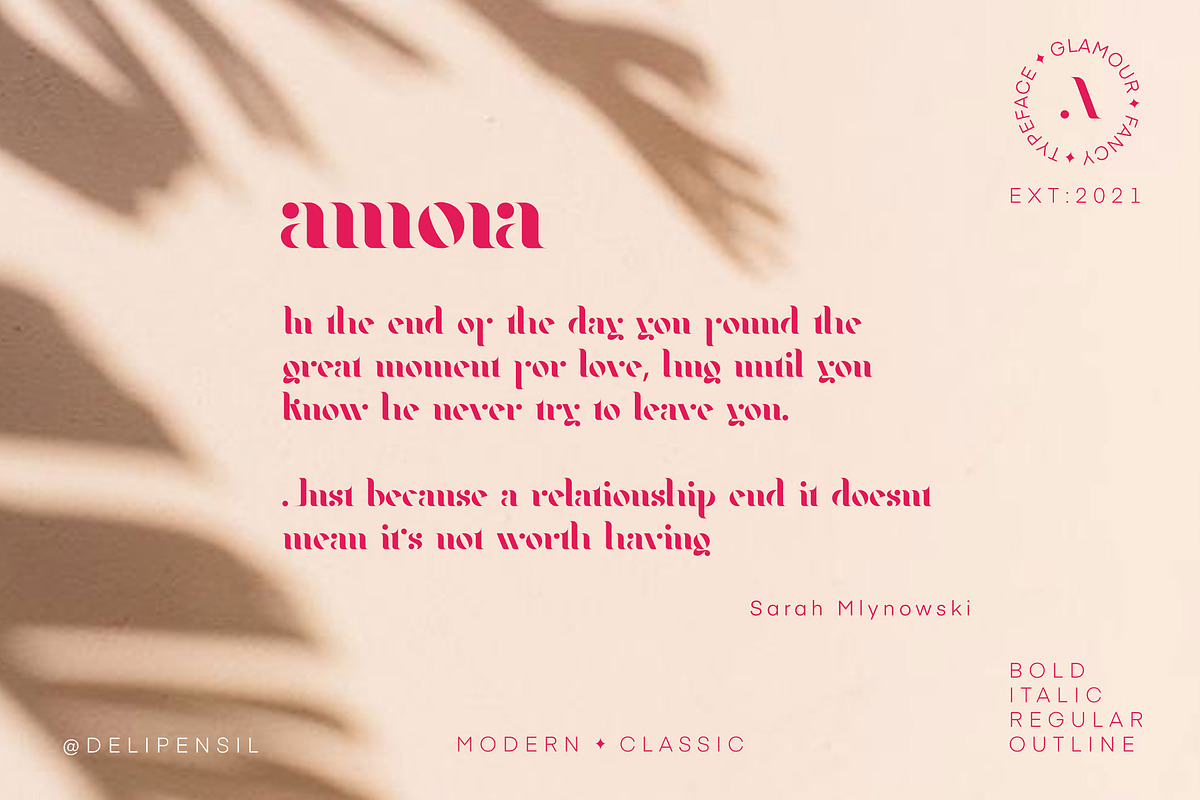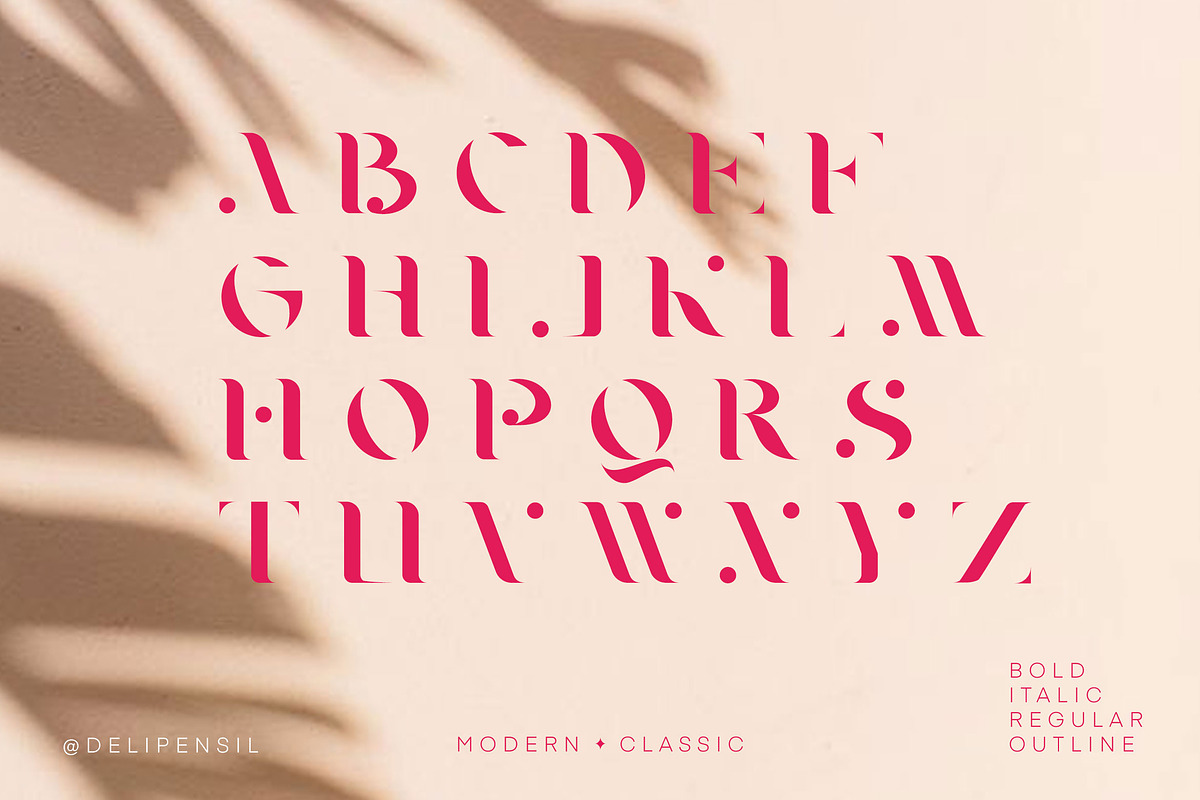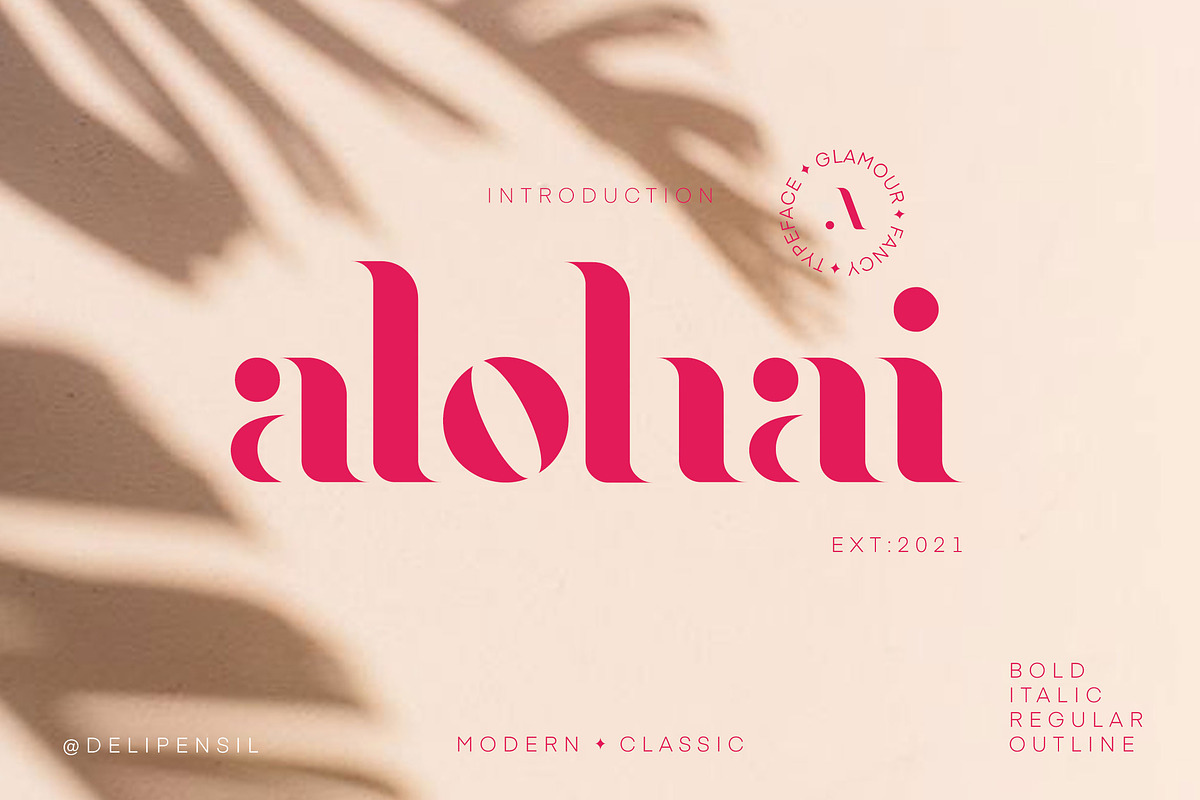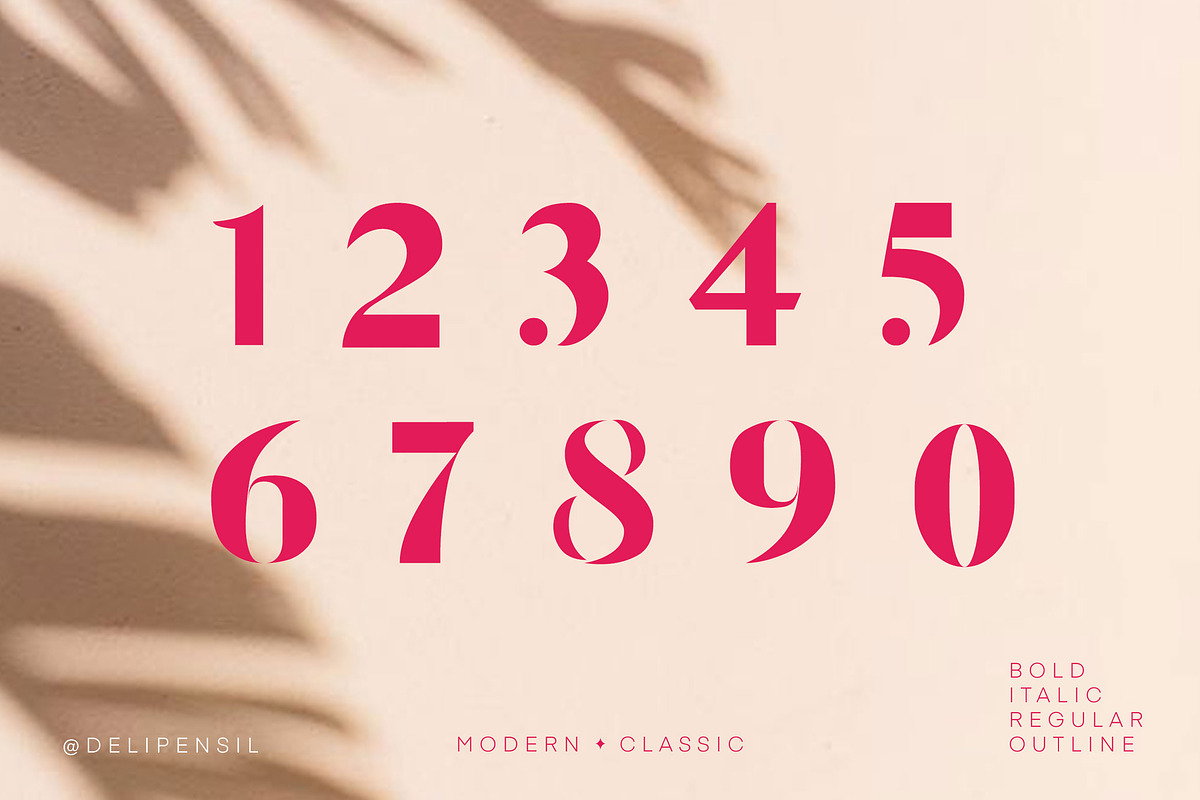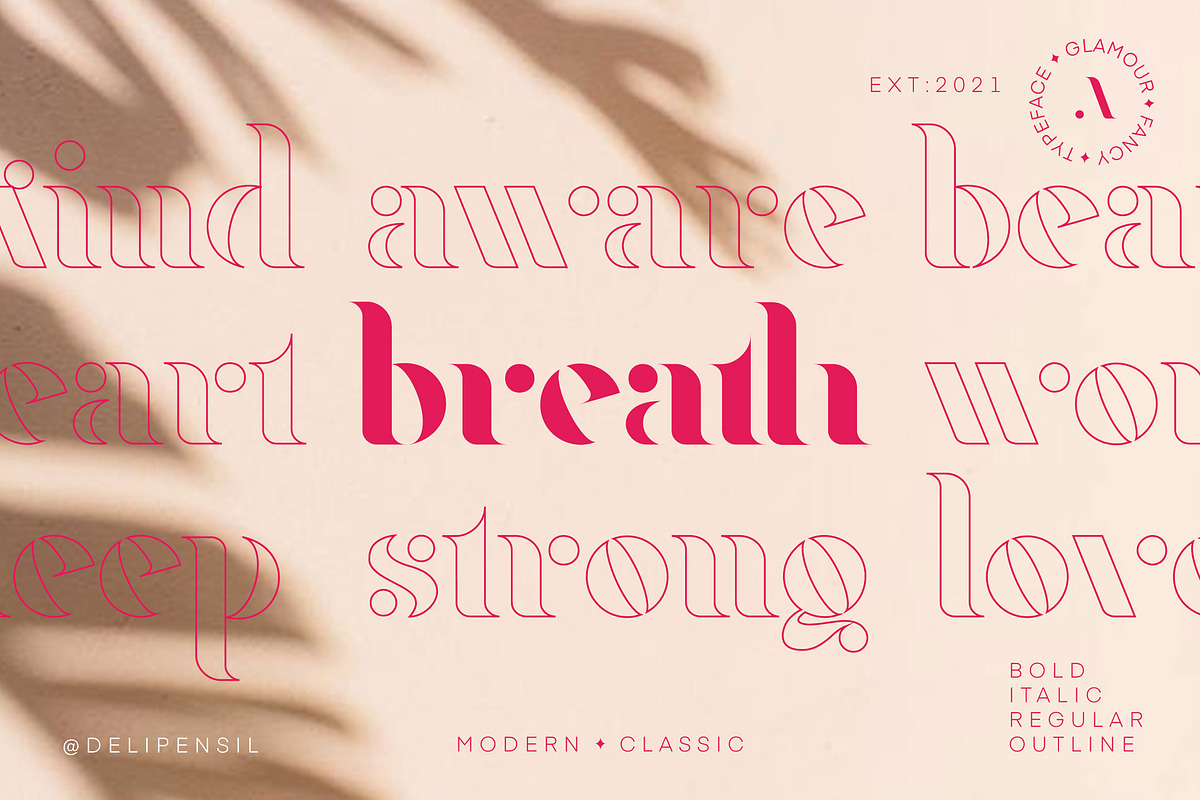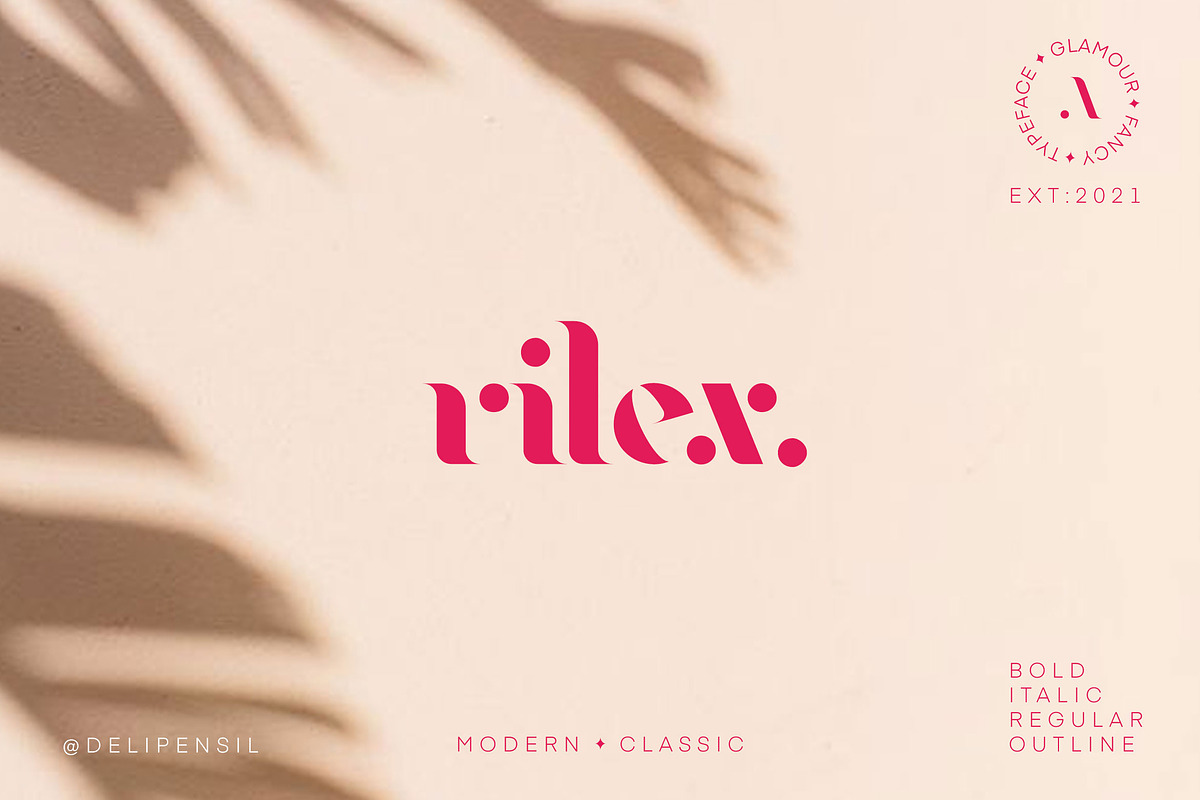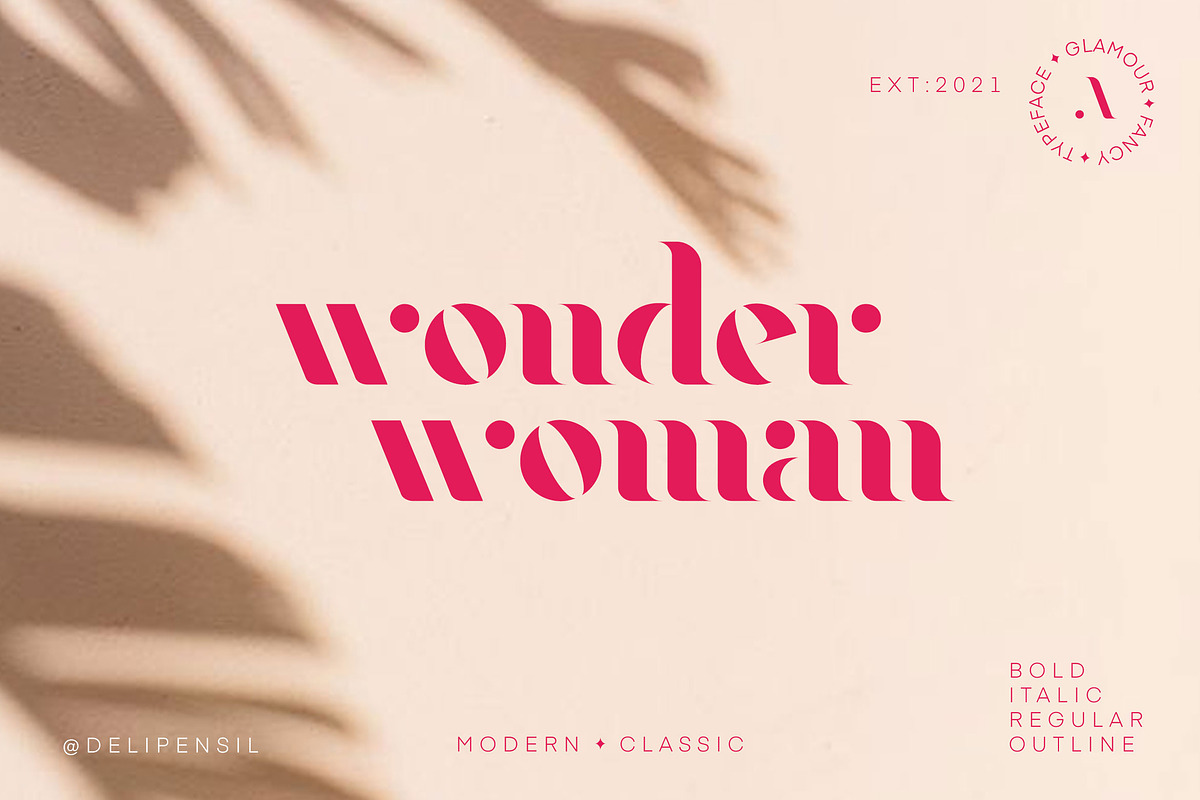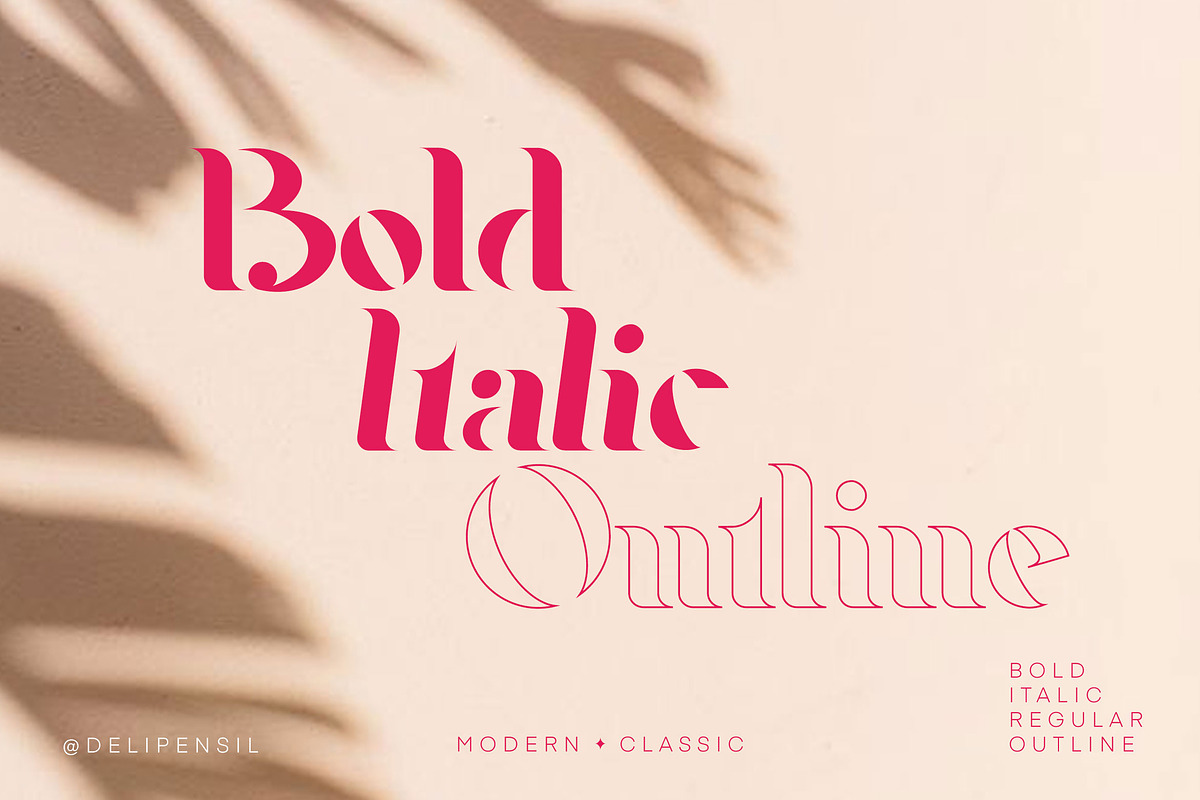
Alohai Feminim Serif Typeface
Bismillah, Alohai Medium is an elegant, clean, luxury, feminim, classic, and beautiful font. Use it for headlines, paragraphs, cover photos, web design, logo, and everything with the elegant touch you can get it now :)
Alohai Numeral & Punctuation
Alohai Language Style
Alohai Bold, Italic & Outline